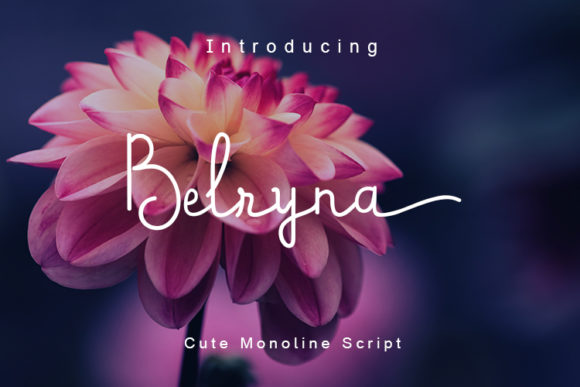
The Belryna Font: Elevating Your Designs with Modern Calligraphy
I’ll never forget the moment I stumbled upon the perfect font for a wedding invitation project. I had been searching for hours, trying out different fonts, but none seemed to capture the elegance and sophistication I was looking for. That was until I discovered the Belryna font. With its classic and elegant touch, it instantly elevated my design and exceeded my client’s expectations. In this article, I’ll share my experience with the Belryna font, its features, and how to make the most of it in your designs.
A Personal Review of Belryna Font
- ✨ Unique and elegant design: The Belryna font boasts a modern calligraphy style with a classic twist, making it perfect for designs that require a touch of sophistication.
- ✅ Versatile: This font can be used for various purposes, such as logos, wedding invitations, letterheads, signatures, and more.
- 💫 High-quality: The font is well-crafted, with attention to detail and a smooth flow.
While the Belryna font is exceptional, there are a few minor quirks to be aware of:
- 🤔 Requires some practice to master: As with any calligraphy font, it may take some time to get familiar with the Belryna font’s nuances and use it effectively.
The Story Behind Belryna Font
The Belryna font was designed with the intention of creating a modern calligraphy font that exudes elegance and sophistication. Inspired by traditional calligraphy, the designer aimed to craft a font that would be versatile and easy to use, while still maintaining a unique and distinctive look.
Q: What type of designs is the Belryna font best suited for?
A: The Belryna font is ideal for designs that require a touch of elegance and sophistication, such as wedding invitations, logos, letterheads, and signatures.